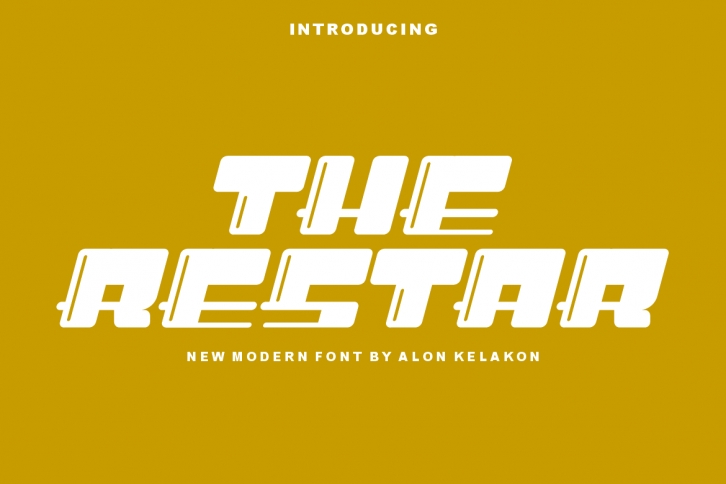
The Restar Font is unique . Ready to use for your design like labeling, clothing, movie sceen, poster, movie title, gigs, album covers, logos, and much more.